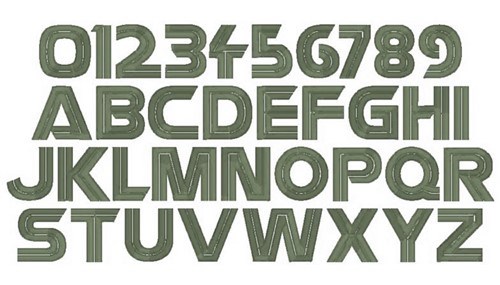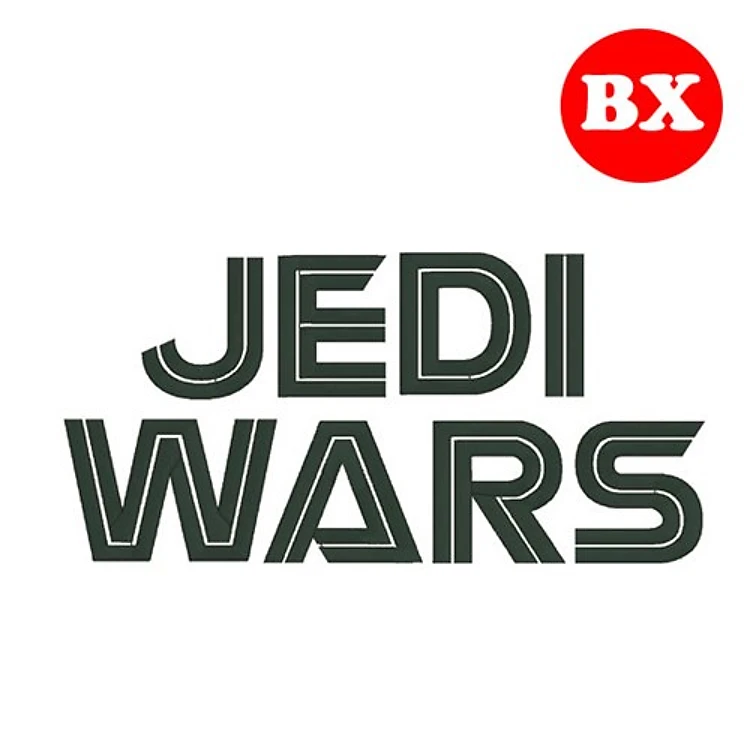
Jedi Wars Embrilliance Embroidery Font - Bold Block Style Lettering - BX font by Unicorn Creatives and other embroidery fonts available at EmbroideryDesigns.com.
Unicorn Creatives is happy to present Jedi Wars Embrilliance Embroidery Font - Bold Block Style Lettering - BX font machine embroidery font which has Bold block-style machine embroidery font suitable for sportswear and apparel, showcasing 'JEDI WARS' with strong lines. Available in Embrilliance format. included. If you would like to view more embroidery fonts and alphabets please search our embroidery fonts page.
Jedi Wars Embrilliance Embroidery Font - Bold Block Style Lettering - BX font